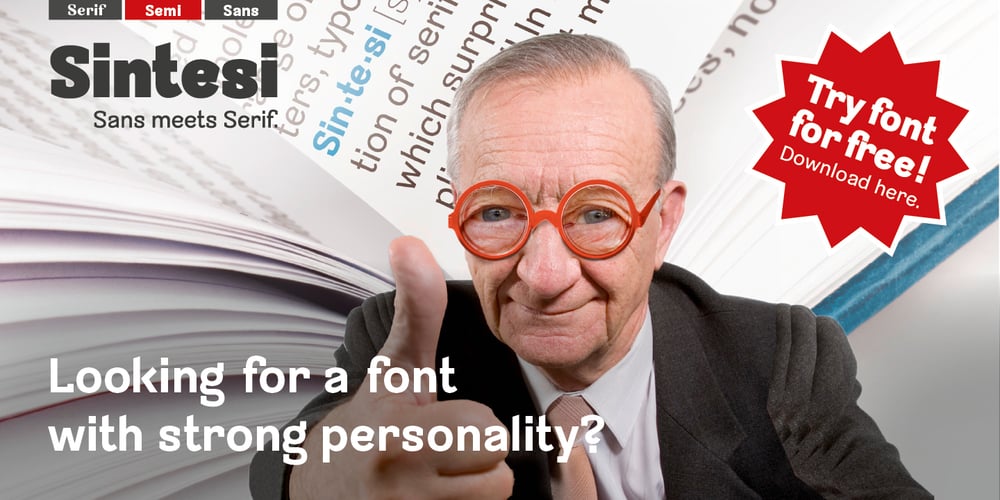
Sintesi Semi
Sintesi Semi font
Sintesi Semi Font Family was designed by Filippo Salmina and published by FSdesign-Salmina. Sintesi Semi contains 30 styles and family package options. Are you looking for a robust, contemporary font with strong personality? Sintesi Semi might be exactly what you are looking for. Sintesi Semi is a hybrid font which manages the “synthesis” between Sans and Serif in its own way. Due to its constant stroke the favorite font of the author is closer to a sans serif and scores with its robustness and contemporary style. Its strong serifs though evoke rather a slab serif font. Sintesi Semi builds together with Sintesi (Serif) and Sintesi Sans an extended family. Prove character too, with Sintesi Semi. Download a free trial version of Sintesi Semi with a reduced character set. Check it out!